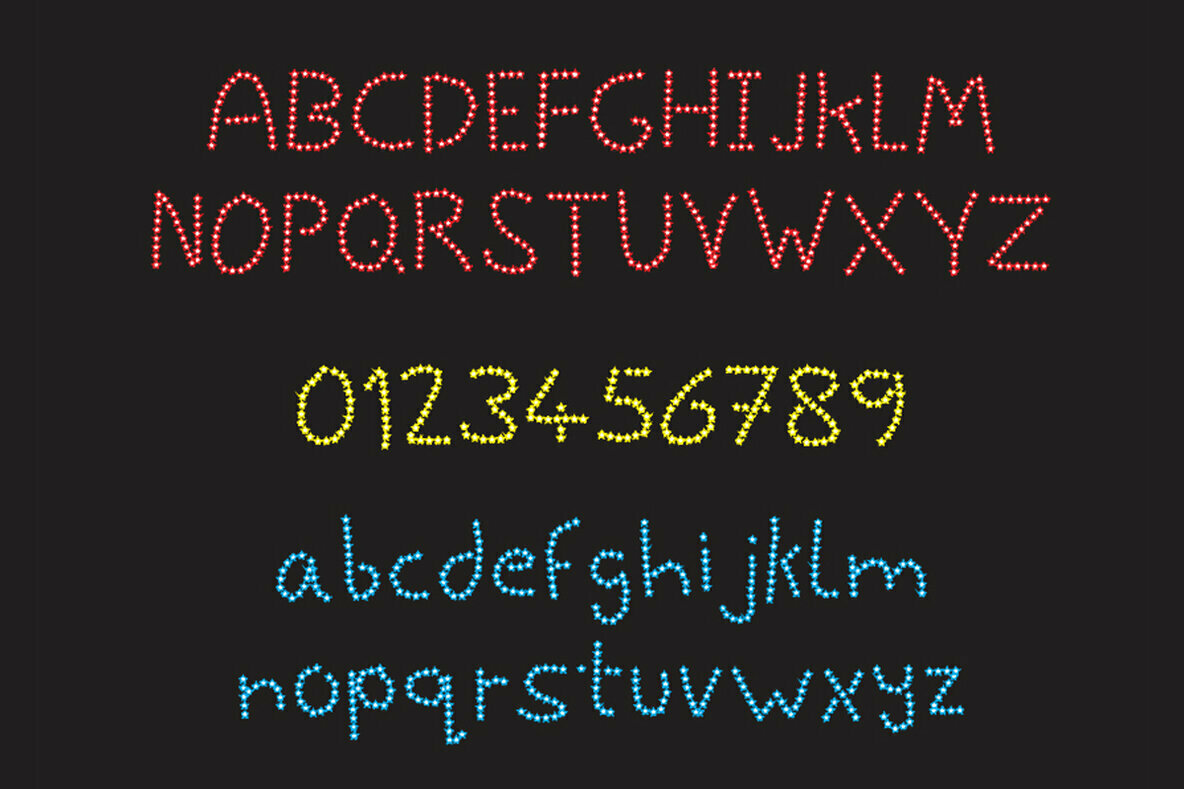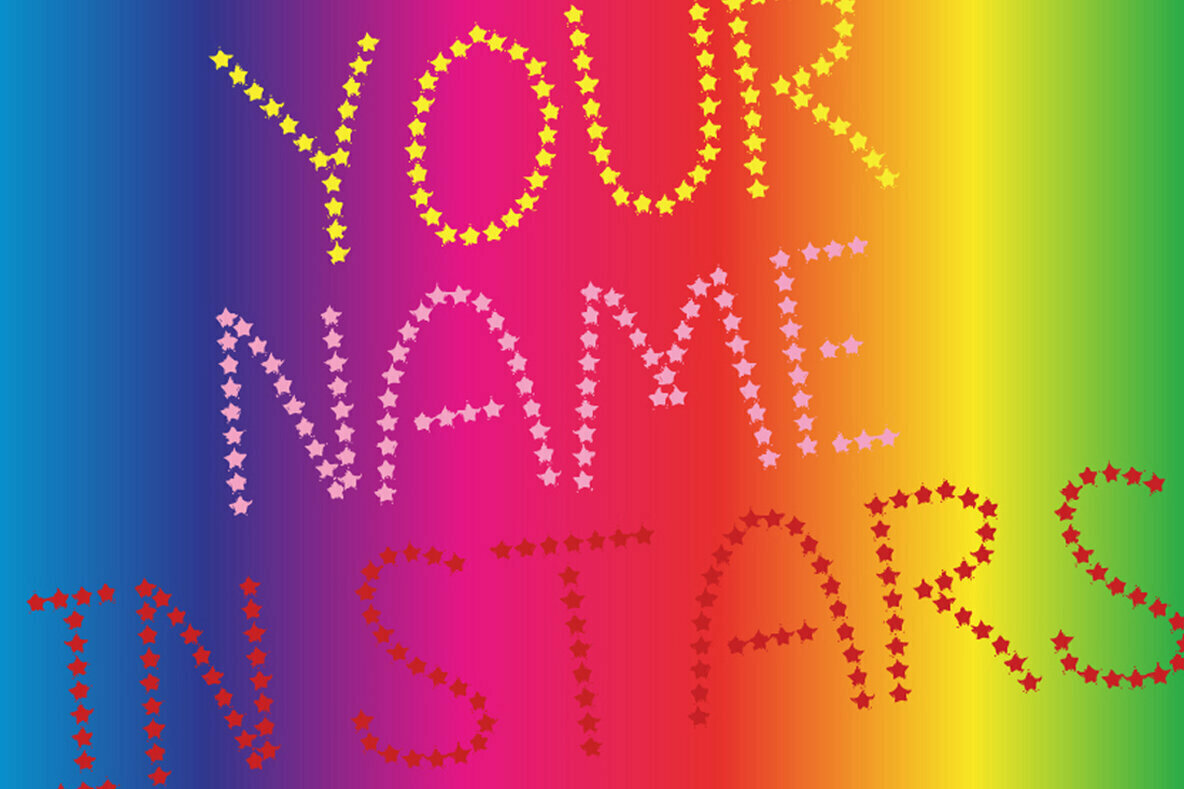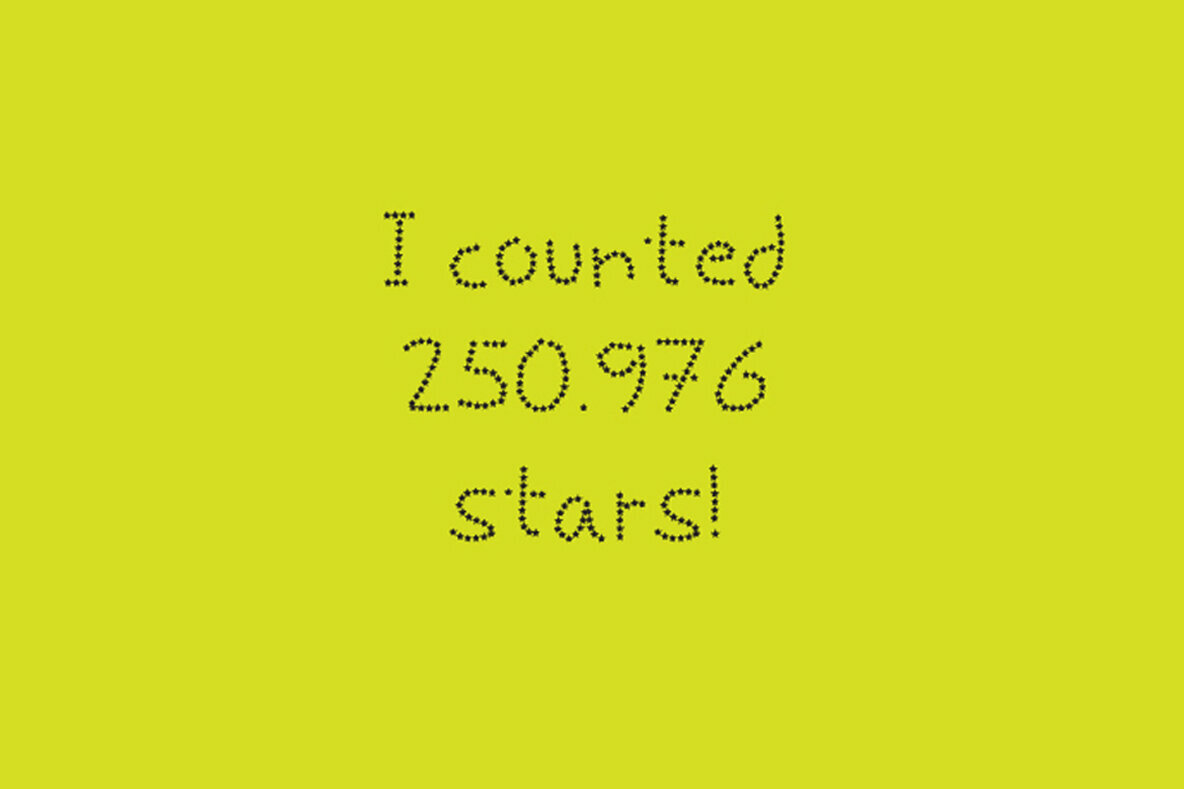
Starz Font
Starz
Starz font is a fun casual font with a bright, personal and innocent feel. It’s the perfect font for kids, teachers and parents alike.